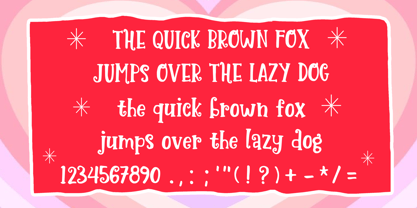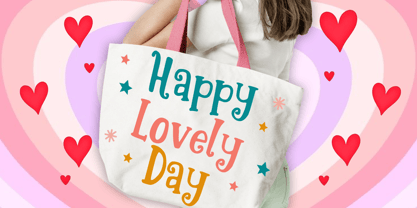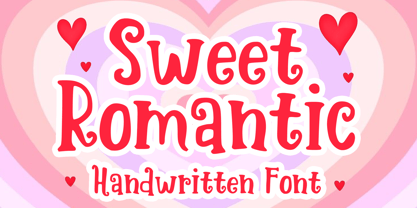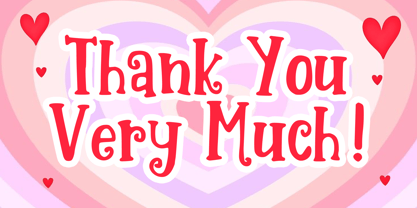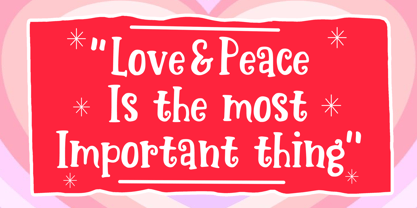
Sweet Romantic
by Mvmet
The Sweet Romantic Font Family was designed by Gabriel Valentinus and published by Mvmet. Sweet Romantic contains 1 styles. More about this family
Unveiling Sweet Romantic, a vibrant and user-friendly decorative font, artfully inspired by the joyous essence of Valentine’s Day. This font is an ideal tool for enhancing the appeal of various design projects, gracefully transitioning from eye-catching tees to captivating book covers, infusing vitality into each creation. Its playful charm is perfect for energizing sticker designs, adding flair to logos, enlivening comic illustrations, and introducing a touch of fun into everyday typing tasks. Sweet Romantic not only elevates your designs but also envelops them in a uniquely cool aura that is truly unforgettable!
Designers: Gabriel Valentinus
Foundry: Mvmet